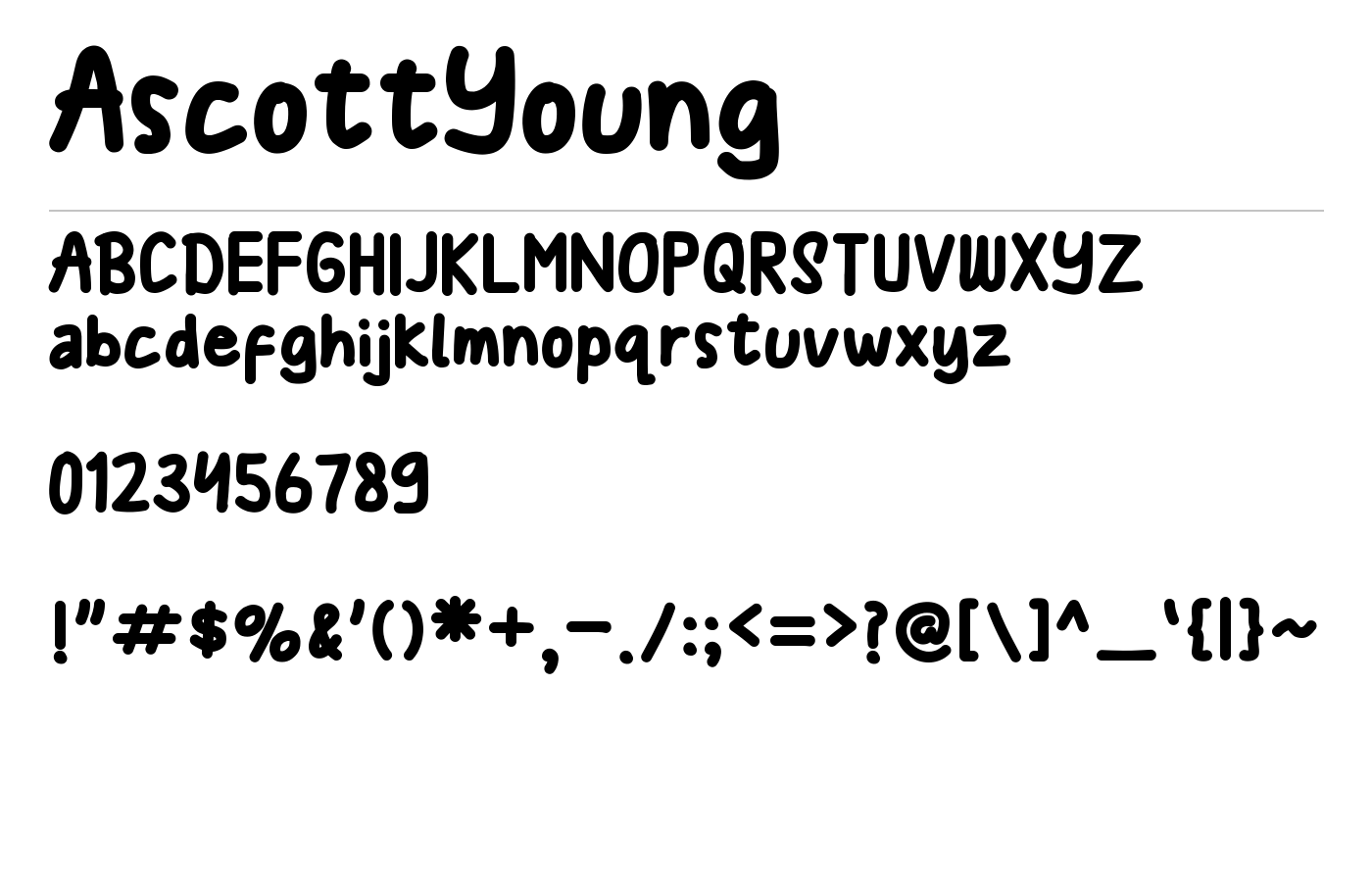
AscottYoung is a playful, rounded sans serif font with a friendly and casual feel. Its soft, bold strokes and slightly irregular letter shapes give it a hand-drawn, youthful personality, making it ideal for creative projects, children’s content, and informal branding. This font works well for headlines, logos, and packaging where a warm and approachable vibe is desired.
AscottYoung Font